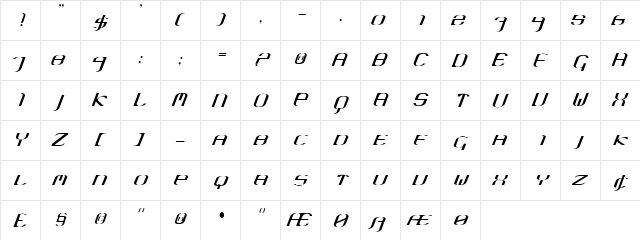
Krane Medium
Design Context for Krane Typeface
Krane is a composed and adaptable typeface that performs quietly and consistently across a wide range of design contexts.